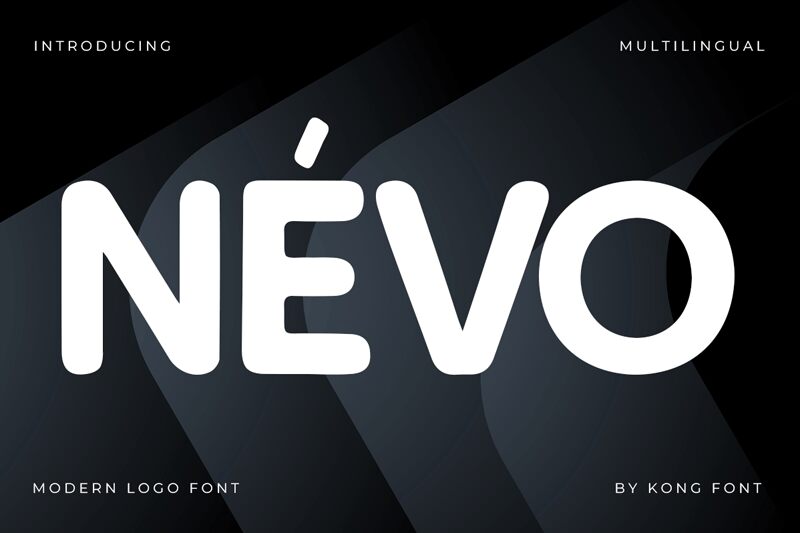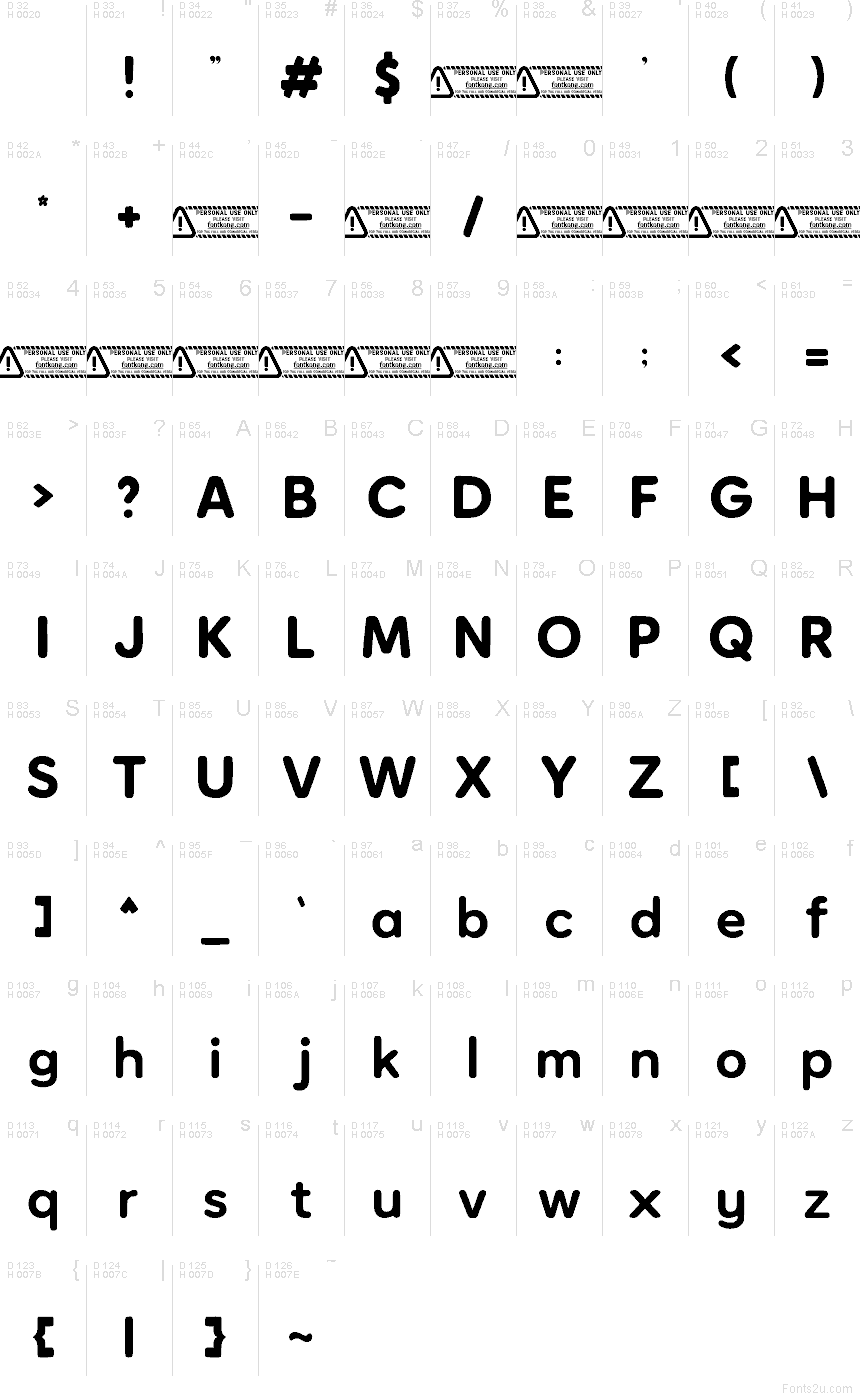
Nevo font by Kong Font is a free rounded sans serif font, with a typeface feel that’s bold, bouncy, and almost inflatable. Its chunky strokes and soft corners read like smooth vinyl letters—friendly, loud, and easy to spot from across a room. Even in all-caps, it keeps a playful rhythm that prevents big words from feeling harsh.
Using Nevo shines on sticker designs, kids’ packaging, playful logos, YouTube thumbnails, app splash screens, event posters, and social ads where you need instant warmth. This free font also holds up well on merch like tees and tote bags thanks to its sturdy shapes. Pair it with a clean, neutral grotesk or a simple geometric sans for body text, and give Nevo a little extra tracking at larger sizes.